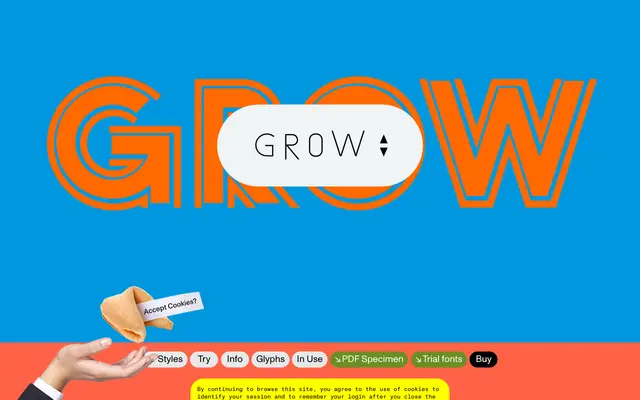
ABC Grow
Dinamo Typefaces · Johannes Breyer & Fabian Harb
A modular layered display typeface by Dinamo, built from six combinable outlines that produce 63 distinct visual configurations.
Inspired by a 1970s phototypesetting typeface structured in onion-like layers, ABC Grow was developed by Johannes Breyer and Fabian Harb using custom software to isolate and recombine six basic outlines. The result is 63 purchasable combinations, all-caps, with fractions, roman numerals, arrows and ligatures included. Alternative narrow characters for O and a tighter M offer a less blocky register when needed.
A modular, all-caps layered display typeface built from six stackable outline layers that can be combined into 63 configurations, placing it firmly in the display category with no direct analogue in conventional subcategories.